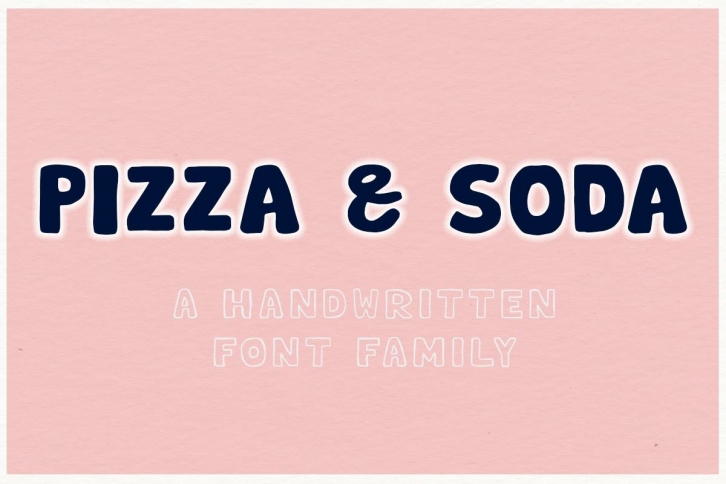
Pizza & Soda is a beautiful font that was designed by Ira Natasha. It's a great choice for designers and creatives who need such a font. It was released on March 28, 2022 and the file size is 12.29 MB. Pizza & Soda may give a more youthful, expressive and casual look to your project. It is a very beautiful, refined, elegant, and high-quality font.